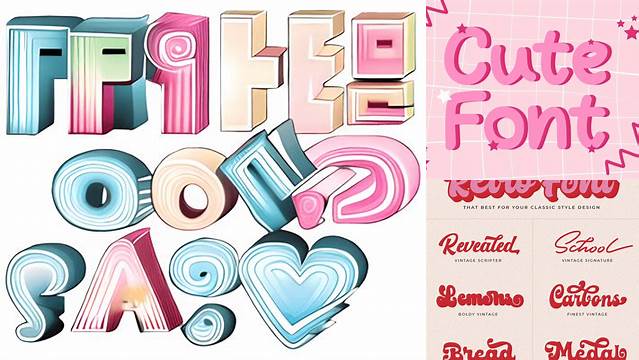
Cute Free Fonts Generator: Find Your Perfect Font
Hey guys! Are you looking to add a dash of cuteness to your designs? Well, you've come to the right place! In this article, we're diving deep into the world of cute free fonts generators, exploring everything you need to know to find and use the perfect font for your project. Whether you're designing a logo, creating social media graphics, or just want to spice up your documents, we've got you covered. Let's get started!
Why Use Cute Fonts?
Cute fonts can inject personality and charm into any design. When considering your design needs, it's important to ask: Why are cute fonts so effective? Well, they evoke a sense of playfulness, warmth, and approachability. Think about it – a whimsical, bubbly font can instantly make a brand feel more friendly and inviting. For businesses targeting children or those aiming for a light-hearted brand image, cute fonts are an absolute must-have. They can transform a simple message into something memorable and engaging.
Moreover, the strategic use of cute fonts can significantly enhance user engagement. Imagine a website with a friendly, rounded font versus one with a stark, corporate typeface. Which one would you rather spend time on? The power of visual cues in communication cannot be overstated, and choosing the right font is a crucial element in conveying the intended message and emotions. When selecting a cute font, consider the overall tone and style of your project. A font that complements the content and design can create a harmonious and visually appealing experience for your audience.
Another advantage of using cute fonts is their versatility. They're not just for kids' projects or playful designs. A well-chosen cute font can add a touch of whimsy to professional materials, making them stand out without sacrificing credibility. For example, a clean, slightly rounded font can make a business card feel modern and approachable. Similarly, a handwritten-style font can add a personal touch to invitations or thank-you notes. The key is to balance the cuteness with readability and professionalism, ensuring that the font enhances the message rather than overshadowing it.
Where to Find Cute Free Fonts
Finally, don't forget about Creative Market and similar platforms. While these sites primarily offer paid fonts, they often have free font bundles or individual fonts available for download. Keep an eye on their freebies section, and you might just snag the perfect cute font for your next project. These platforms often feature fonts created by independent designers, providing you with access to unique and high-quality typefaces.
How to Use a Cute Free Fonts Generator
Okay, so you've found some cute fonts you love – now what? This is where a cute free fonts generator comes in handy! These tools allow you to preview fonts and experiment with different text styles without having to download and install a bunch of fonts on your computer. It's a huge time-saver, trust me. Most online generators work in a similar way: you simply type in your text, choose a font from their library, and voilà ! You can see how your text looks in that particular font.
One of the key benefits of using a cute fonts generator is the ability to quickly compare different fonts side-by-side. This helps you make informed decisions about which font best suits your project's aesthetic. Many generators also offer customization options, such as adjusting the font size, color, and spacing. This allows you to fine-tune the appearance of your text and ensure it looks perfect in your design. Plus, it's a fun way to play around with typography and get a feel for how different fonts interact with your content.
So there you have it – a comprehensive guide to cute free fonts generators! Finding and using the perfect font doesn't have to be a daunting task. With the wealth of resources available online, you can easily add a touch of cuteness and personality to your designs. Remember to consider the tone of your project, prioritize readability, and always check the font license. And most importantly, have fun exploring the wonderful world of typography! Happy designing, guys!